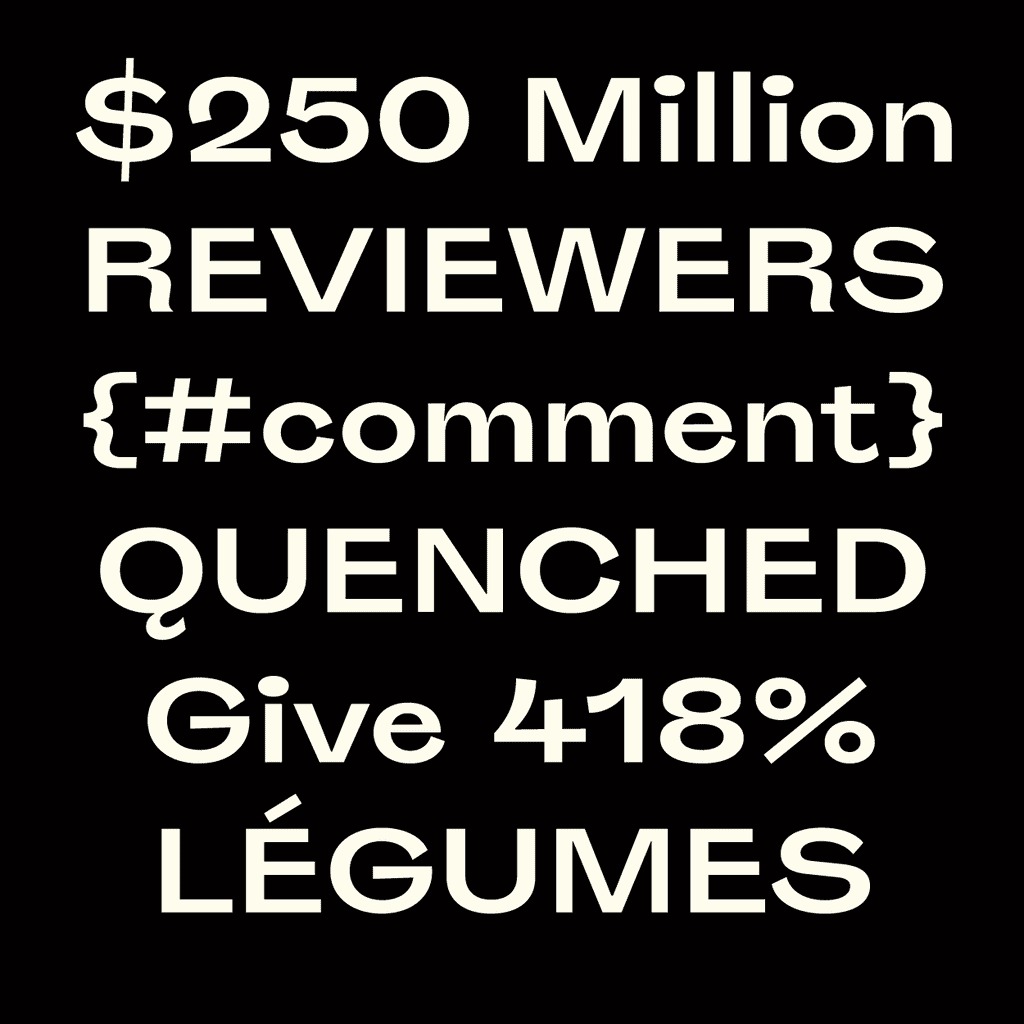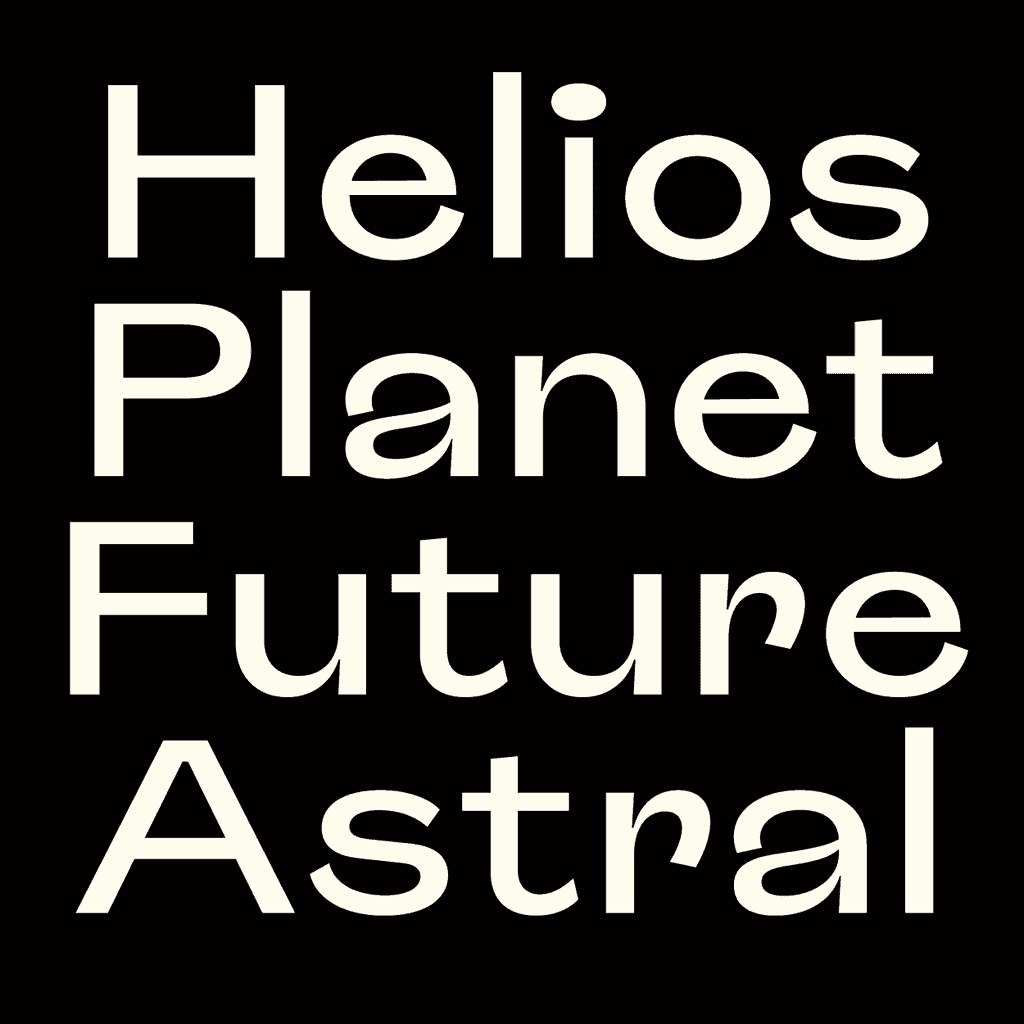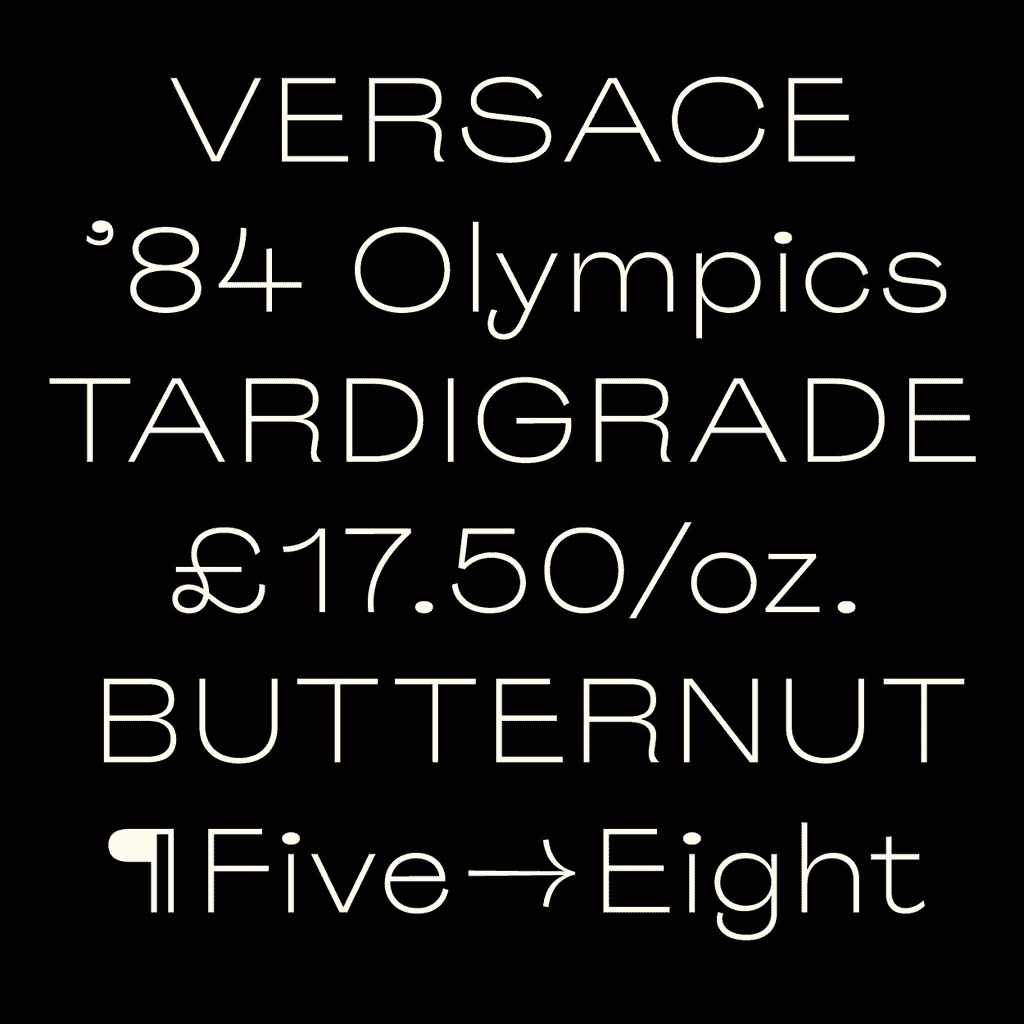
Roquefort Font Family
Roquefort Sans Serif Font is designed for maximum visual and emotional impact. Its 5 weights excel in posters, social media, headlines, titling, large-format print – and anywhere else you want to be noticed. Hidden among the straight lines and corporate confidence is a hint of roguish charm and character; Roquefort lends your words a strong voice while being lot of fun to use.